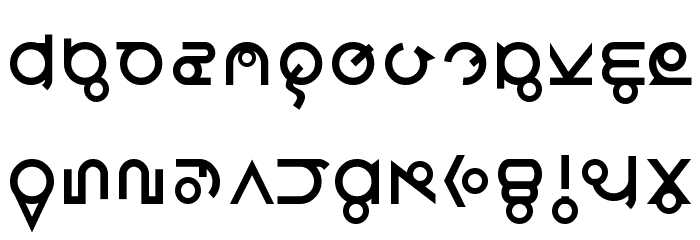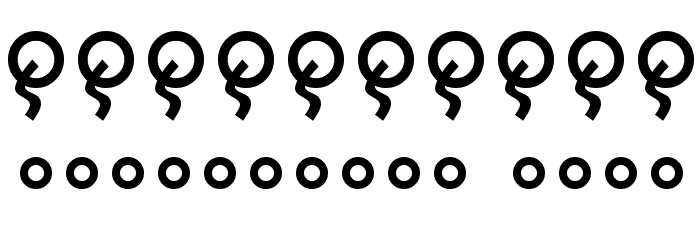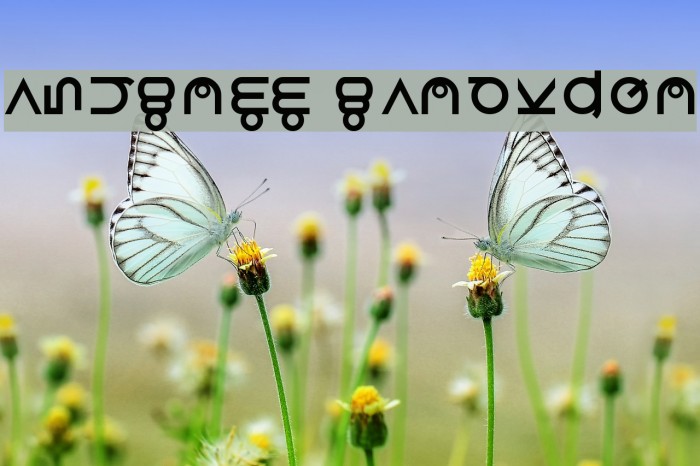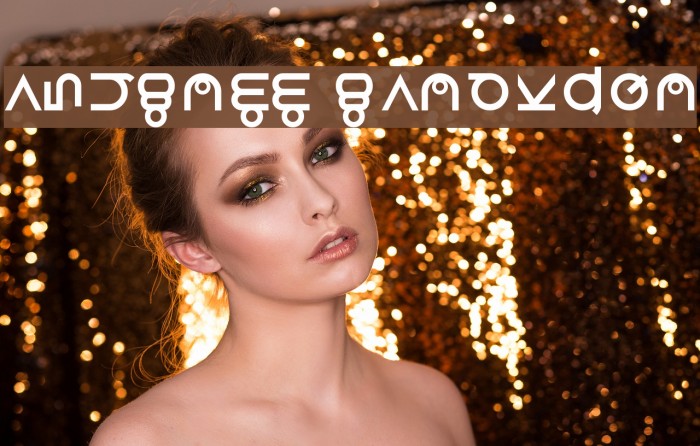
Roswell Wreckage Font
This font features a highly decorative and abstract style, reminiscent of alien or futuristic scripts. The characters are composed of bold, geometric shapes with a consistent thickness throughout, giving it a monospaced appearance. The design includes unique, angular forms and circular elements, creating a sense of mystery and intrigue. The overall aesthetic is both modern and otherworldly, making it stand out as a display font. Its distinctiveness makes it unsuitable for body text but ideal for creative projects where a strong visual impact is desired.
A bold, geometric, and abstract font with a futuristic, alien-like appearance.
- Font: Roswell Wreckage
- Proposed Projects: Ideal for science fiction book covers, movie posters, video game titles, and any project requiring a futuristic or extraterrestrial theme.
- Overall Style: Futuristic, Alien, Decorative